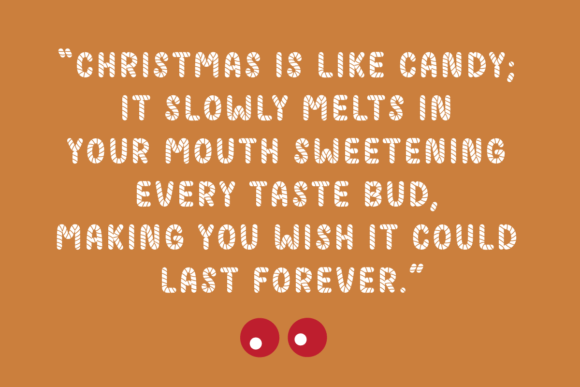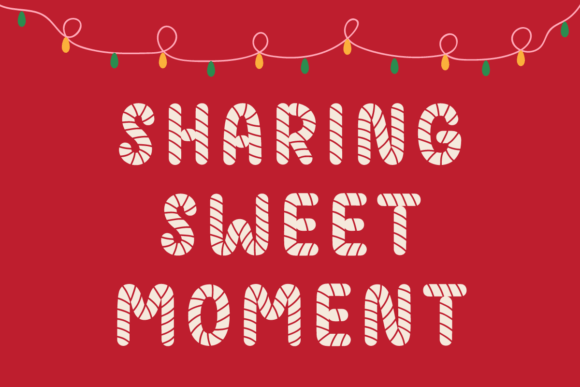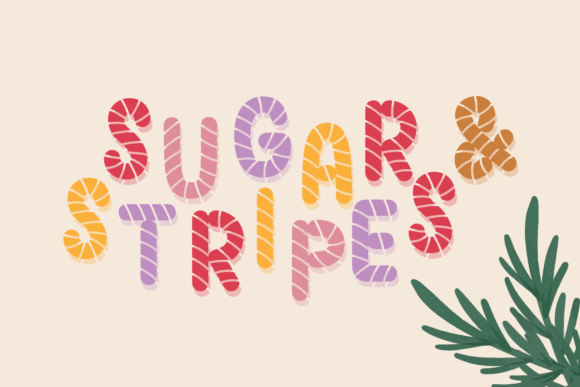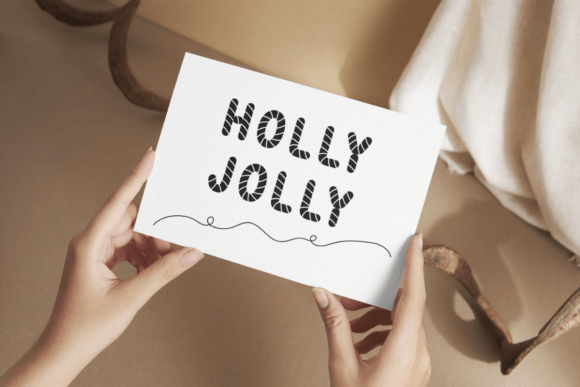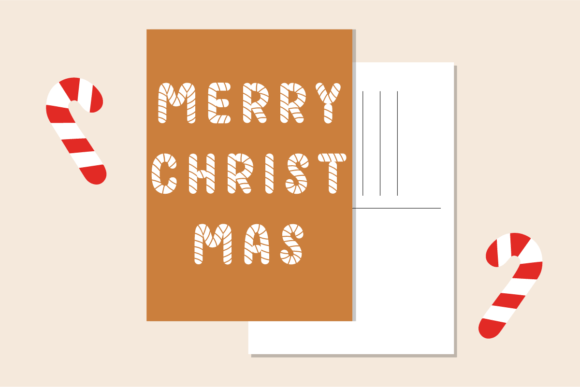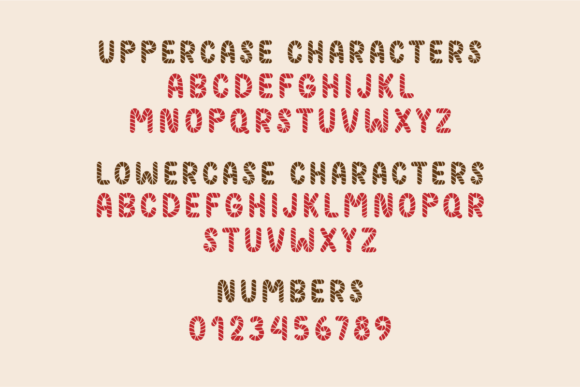
Candy Cane Font: The Sweetest Christmas Decorative Font for Your Holiday Projects
Are you looking for a festive and fun font to add a touch of Christmas magic to your designs? Look no further than the Candy Cane Font! This adorable Christmas decorative font is perfect for a wide range of holiday projects, from Christmas invitations and greeting cards to retro designs, shirts, mugs, stickers, and more.
What Makes Candy Cane Font So Special?
The Candy Cane Font is a cute and playful font that captures the spirit of Christmas with its fun and festive design. Its unique and eye-catching style makes it perfect for adding a touch of holiday cheer to any project. Whether you’re a designer, crafter, or DIY enthusiast, this font is sure to inspire your creativity and help you create stunning holiday designs.
Uses for Candy Cane Font
The Candy Cane Font is incredibly versatile and can be used for a wide range of projects, including:
- Christmas invitations and greeting cards
- Retro designs and vintage-inspired projects
- Shirts, mugs, and other holiday-themed merchandise
- Stickers and other craft projects
- Playful quotes and festive posters
- Illustrations and decorative art
Why Designers and Crafters Love Candy Cane Font
Designers and crafters love the Candy Cane Font for its unique and playful style, which adds a touch of holiday magic to any project. Here are just a few reasons why:
- High-quality design: The font is designed with high-quality, crisp lines that look great in both print and digital formats.
- Customizable: The Candy Cane Font can be customized to fit your project’s needs, including adjusting the size, color, and style.
- Festive and fun: The font’s festive and fun design is sure to add a touch of holiday cheer to any project.
Tips for Using Candy Cane Font
Here are a few tips for using the Candy Cane Font in your projects:
- Pair with other festive fonts: Pair the Candy Cane Font with other festive fonts to create a unique and eye-catching design.
- Experiment with colors: Experiment with different colors and textures to add depth and interest to your design.
- Use in combination with graphics: Use the Candy Cane Font in combination with graphics and illustrations to create a fun and festive design.
- Keep it simple: Don’t be afraid to keep your design simple and clean, allowing the Candy Cane Font to be the star of the show.
The Candy Cane Font is a fun and festive Christmas decorative font that’s perfect for adding a touch of holiday magic to your designs. With its unique and eye-catching style, this font is sure to inspire your creativity and help you create stunning holiday projects. Whether you’re a designer, crafter, or DIY enthusiast, the Candy Cane Font is a must-have for your holiday design toolkit.